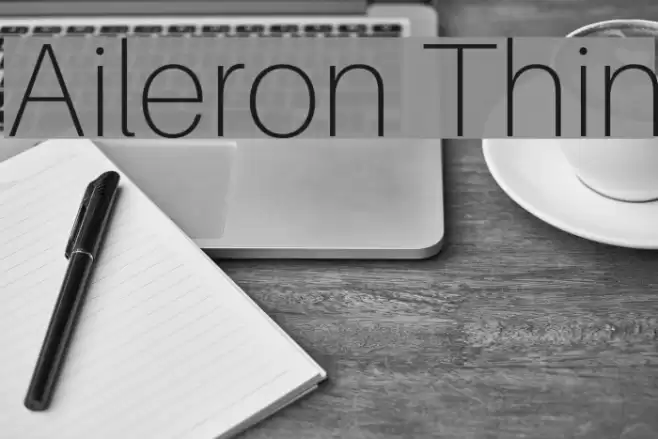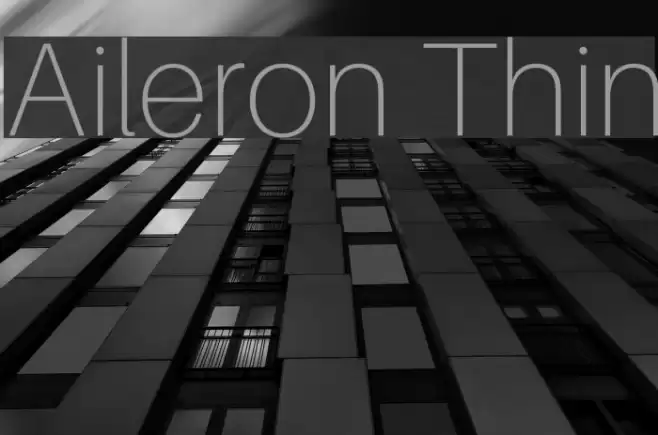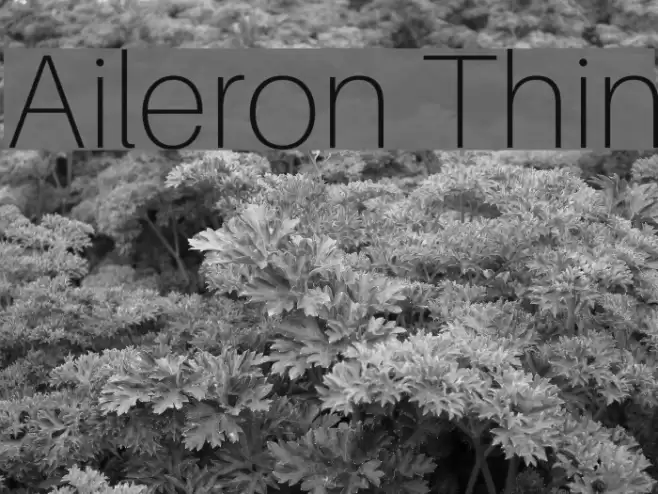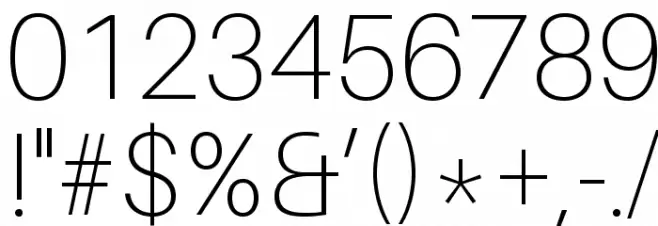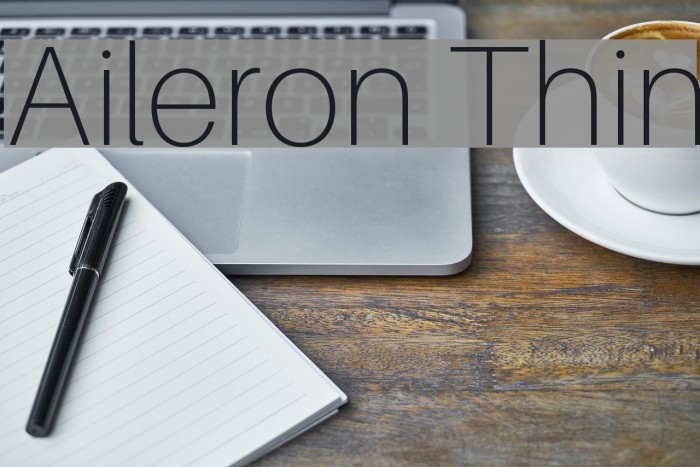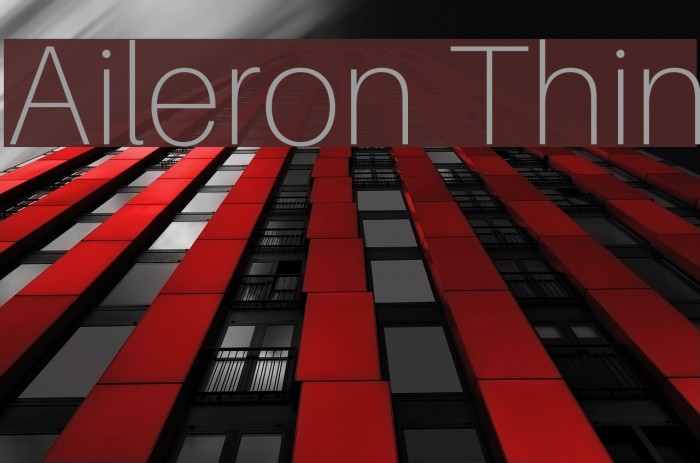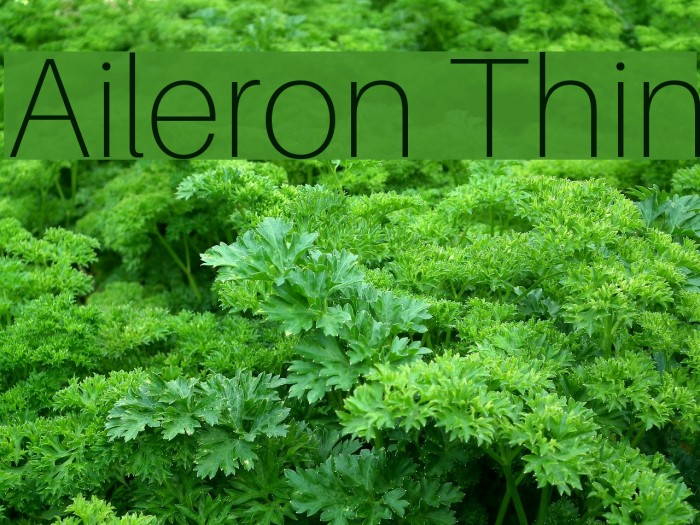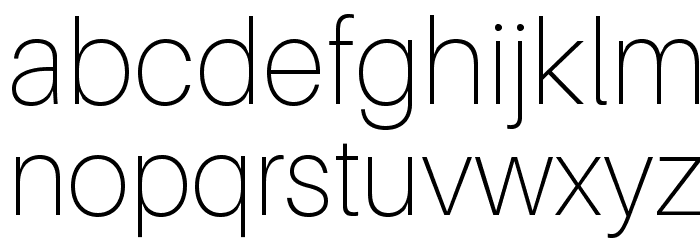
Aileron Thin Font
Aileron Thin Description
This font exhibits a clean and modern sans-serif style with a thin weight, offering a sleek and minimalist appearance. The characters are well-proportioned with a uniform stroke width, contributing to its legibility and elegance. The uppercase and lowercase letters maintain a consistent height and spacing, while the numerals are clear and straightforward. Special characters are designed with the same attention to detail, ensuring they blend seamlessly with the rest of the typeface. This font's simplicity and clarity make it versatile for various design applications.
A modern, thin sans-serif font with a clean and minimalist design from Uncategorized fonts.
- Proposed Projects: Ideal for use in modern web design, corporate branding, minimalist posters, and clean editorial layouts.